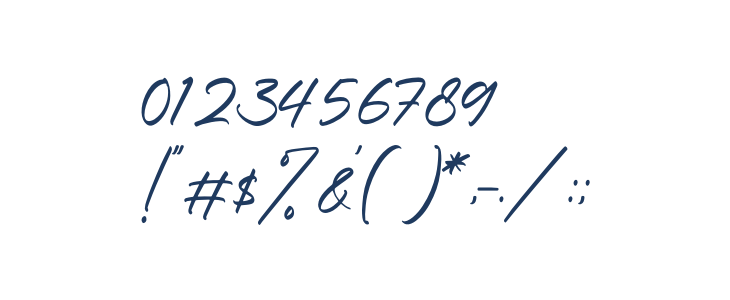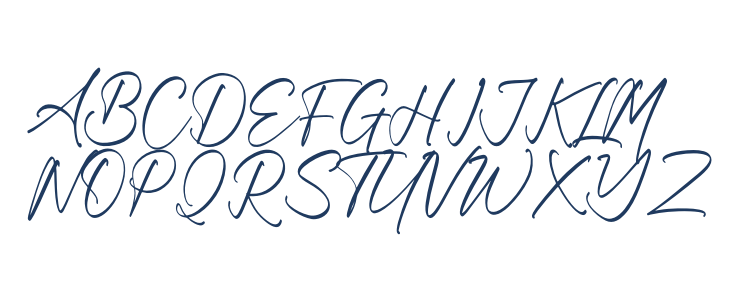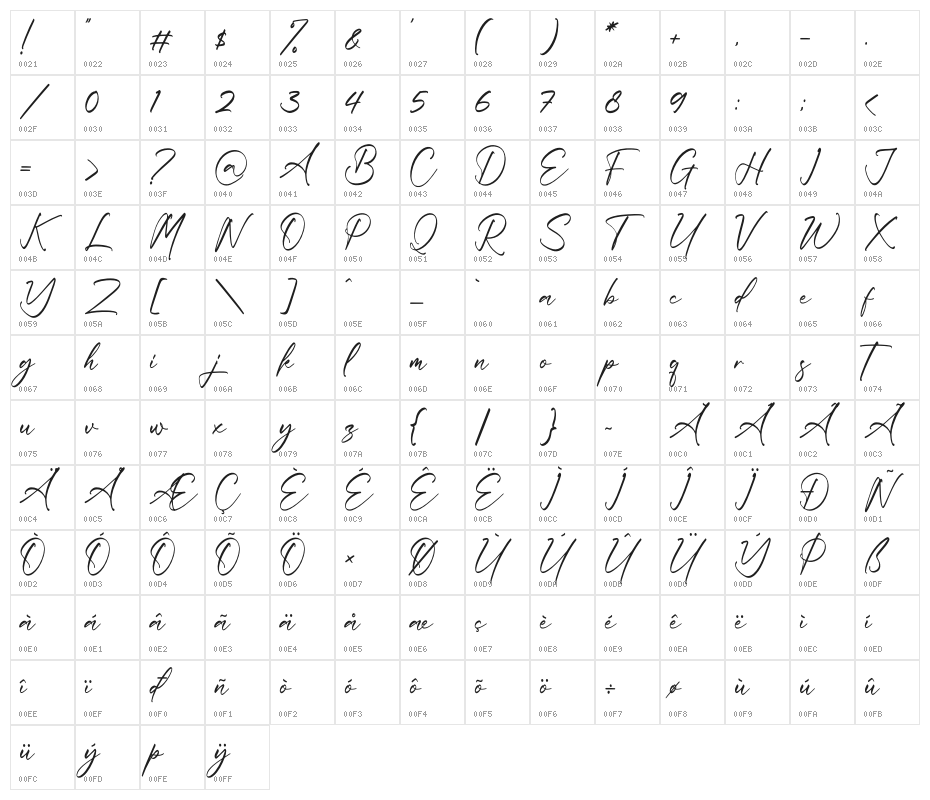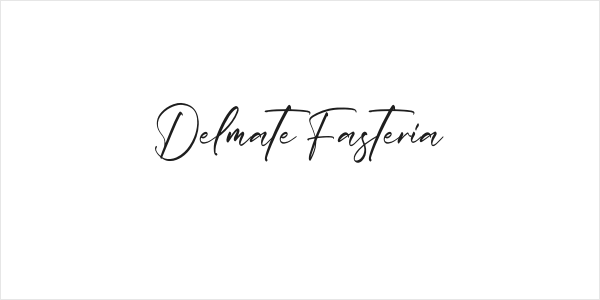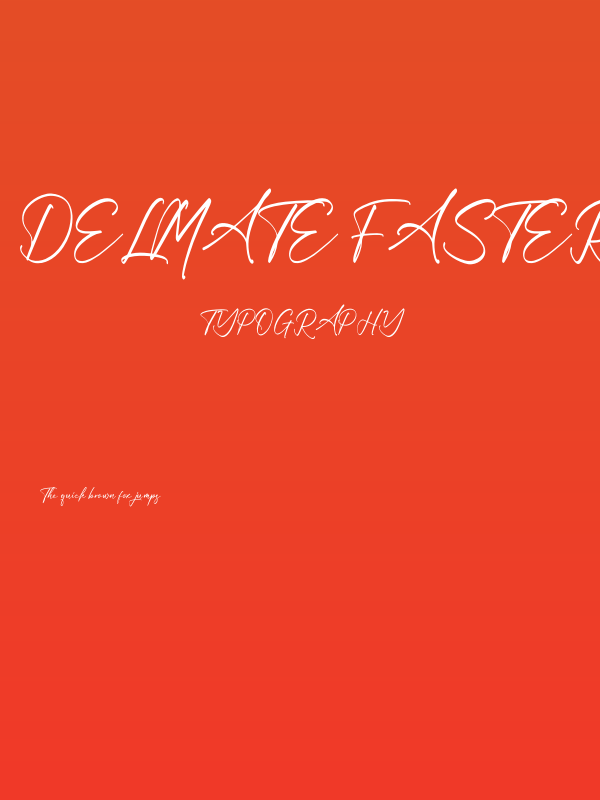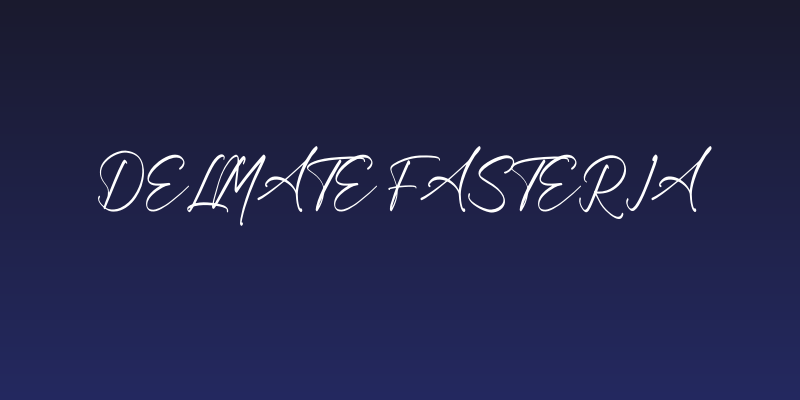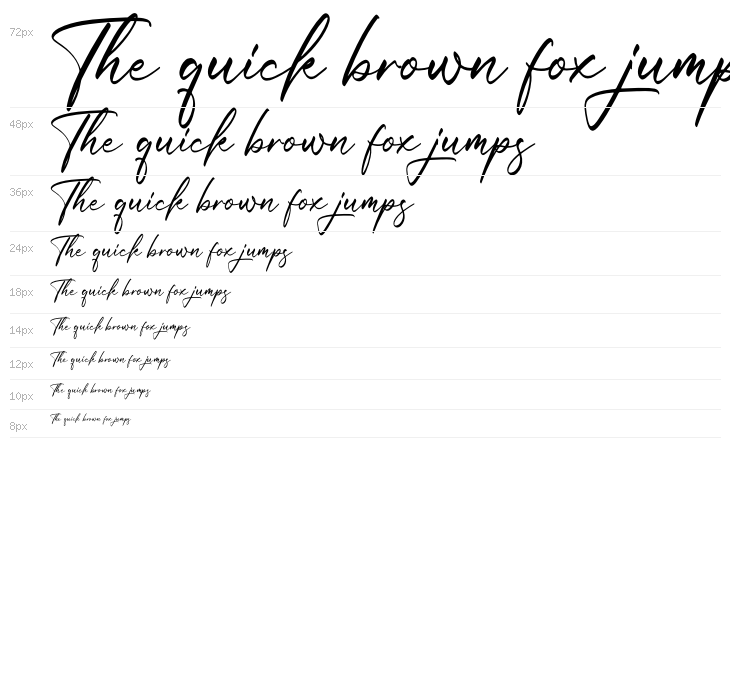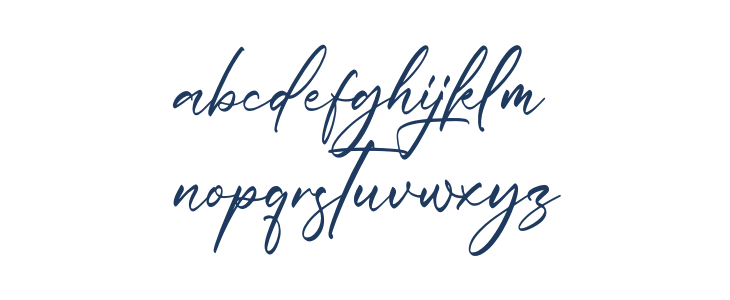
Delmate Fasteria Font
Delmate Fasteria Description
A dynamic, flowing script font with a handwritten appearance, featuring varied stroke thickness and expressive, elongated letterforms. The uppercase and lowercase letters are highly stylized, with noticeable slant and fluid connections, giving a personal and energetic feel.
| Overall Style | Decorative, Handwritten, Modern |
| Use Case | Logos, Headlines, Invitations, Artistic projects |
| Proposed Projects | Invitations, greeting cards, branding, personal notes, artistic posters. |